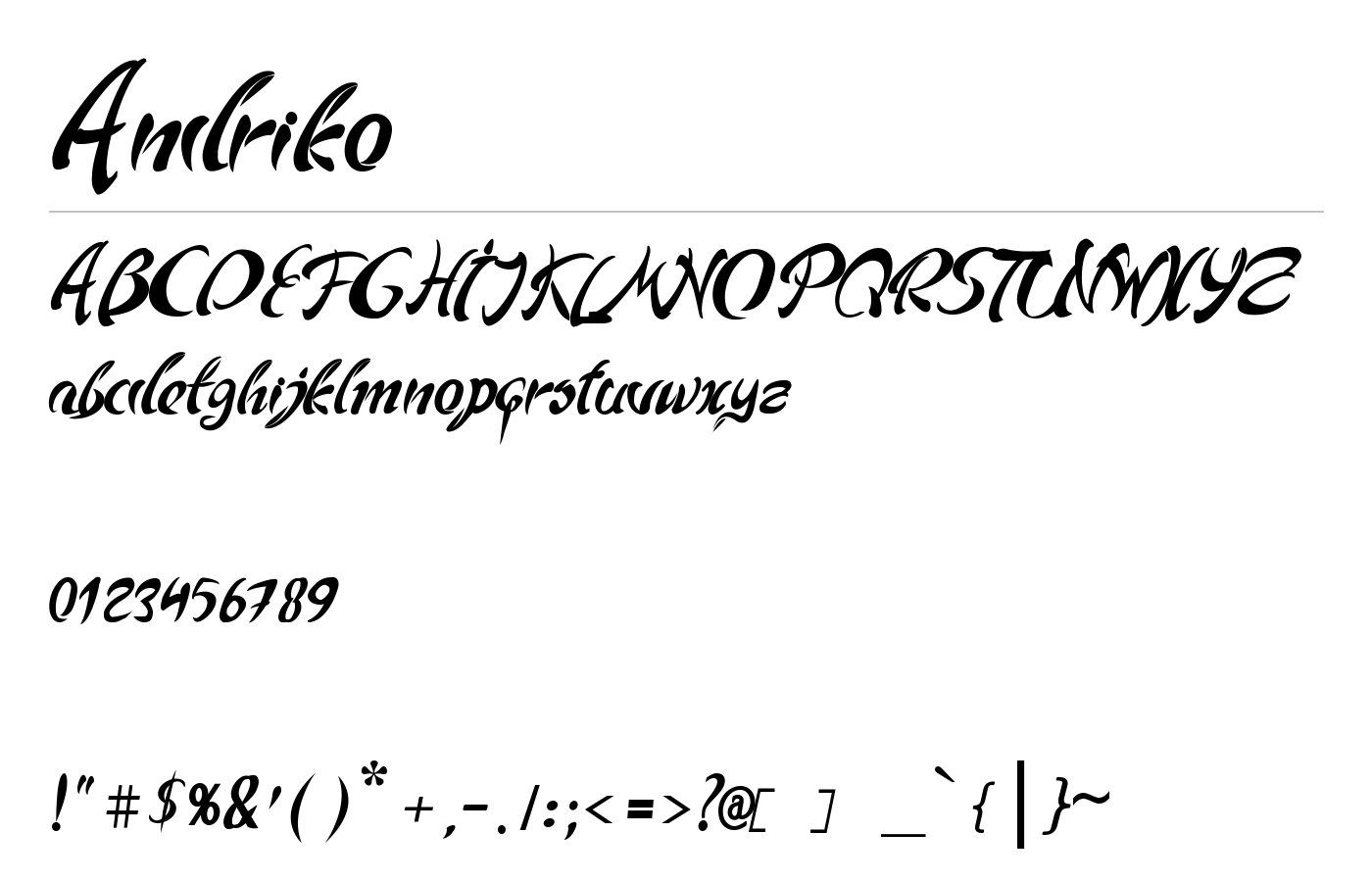
Andriko is an energetic and expressive script font with a bold, brush-like style that combines fluid, flowing strokes with sharp, dynamic edges. Its slightly condensed letterforms and high contrast between thick and thin lines give it a distinctive, artistic flair, making it perfect for creative branding, eye-catching headlines, and stylish logos. This font’s lively and modern personality lends well to projects seeking a unique, handcrafted touch with a contemporary vibe.
Andriko Font
About Andriko Font